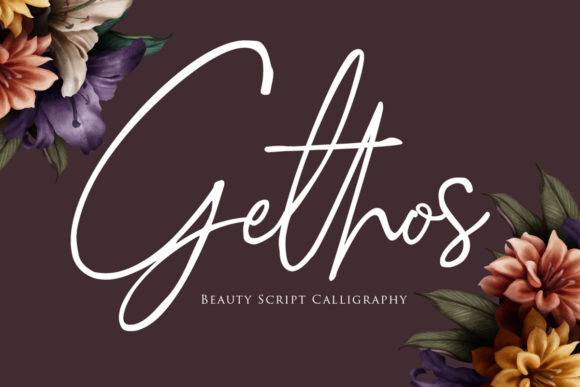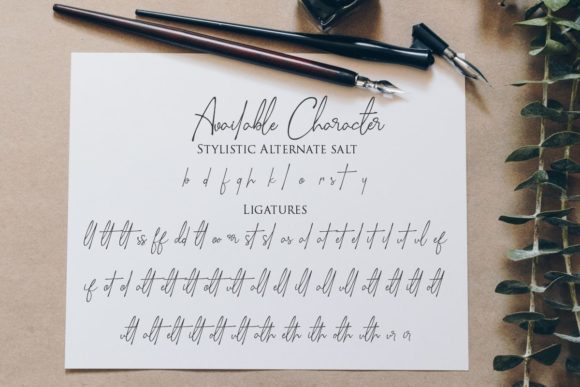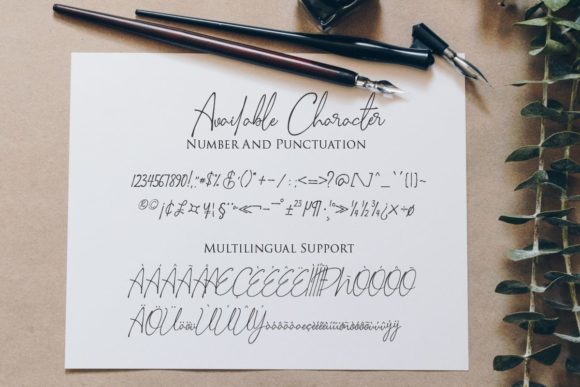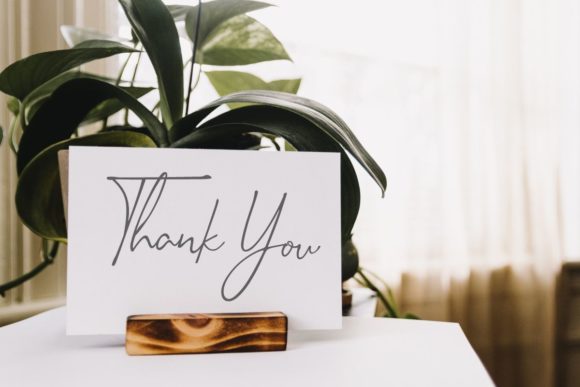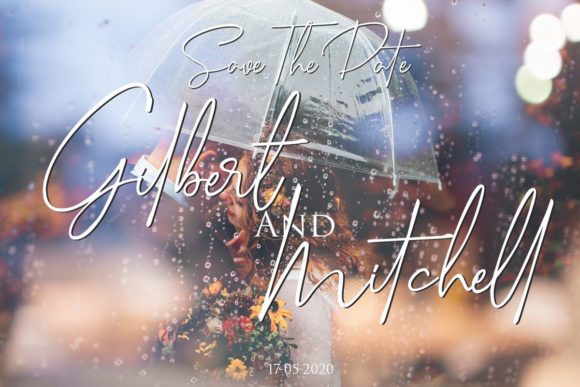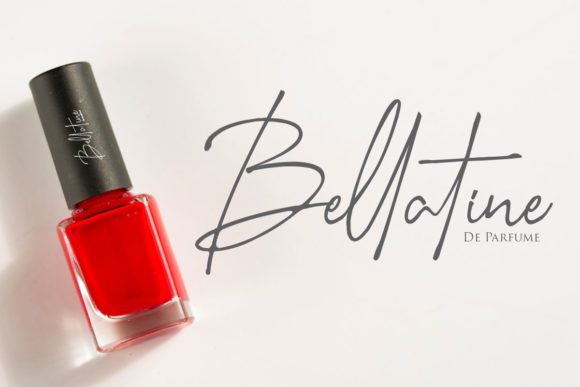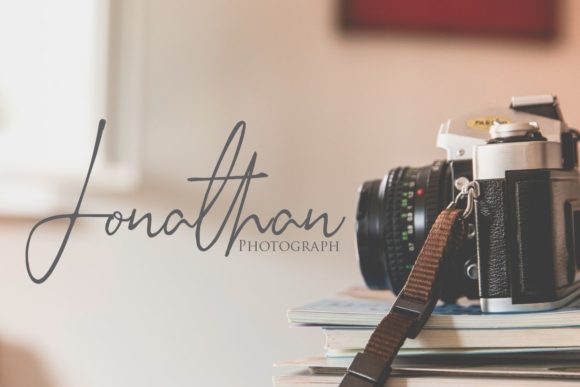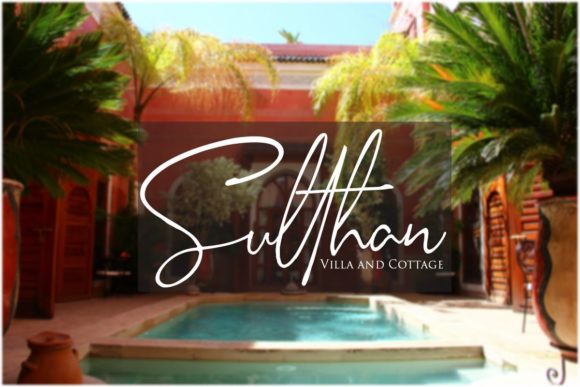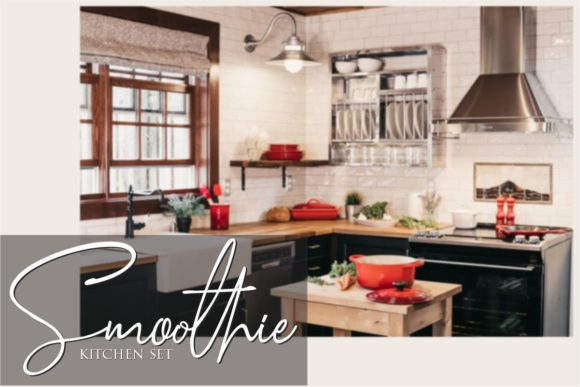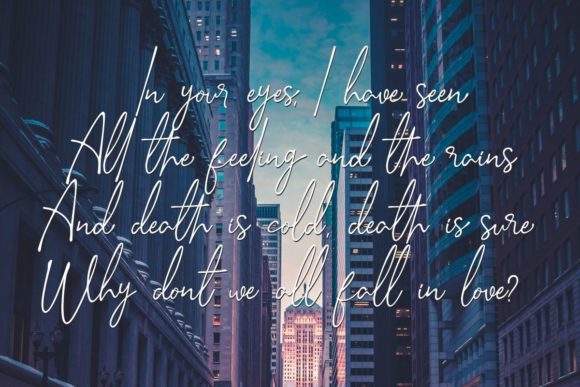
Gethos Font
About Gethos Font
Gethos is a flowing handwritten font, described by an elegant touch, perfect for your favorite projects. Fall in love with its incredibly distinct and timeless style and use it to create spectacular designs! Gethos is PUA encoded which means you can access all of the glyphs and swashes with ease!